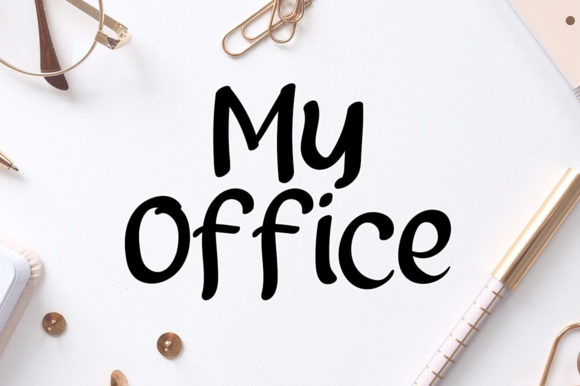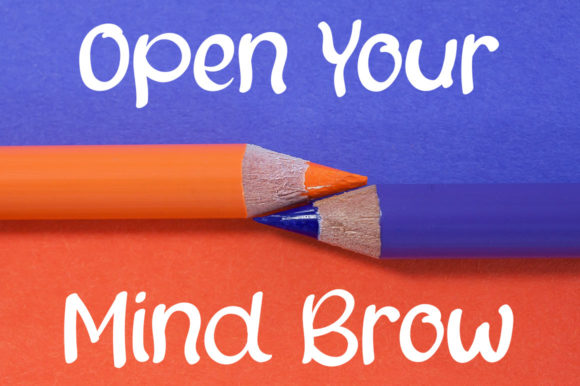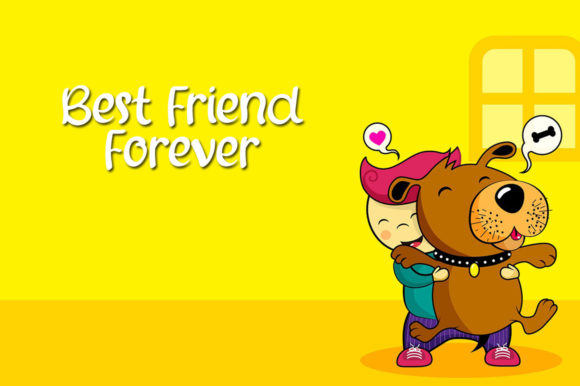
About Love Designer Font
Love Designer is a font that is both beautiful and sweet. It exudes a sense of freshness, cleanliness, and elegance. This font is versatile and can enhance a wide range of projects, whether they are formal or informal. It adds an incredibly joyful touch to your designs, making them more appealing and engaging.
The beauty of Love Designer lies in its simplicity. It’s designed to simplify your design process, making it easier for you to create stunning and professional-looking designs. Whether you’re a professional designer or a hobbyist, Love Designer can help you streamline your design process and enhance your creativity.
One of the standout features of Love Designer is its sweetness. This gives it a warm and inviting feel, making it perfect for projects that require a personal touch. Whether you’re designing a wedding invitation, a logo, or a social media post, Love Designer can add that extra touch of sweetness that makes your designs stand out.
Love Designer is not just a font; it’s a tool that can help you express your creativity. Its fresh and clean look can bring a sense of freshness and cleanliness to your designs, making them more appealing and engaging. Whether you’re designing for a client or for your own personal projects, Love Designer can help you convey the right emotion and message.
Moreover, Love Designer can make your business look more beautiful. Its elegant and professional look can enhance your business’s brand image, making it more appealing to your customers. Whether you’re designing a logo, a business card, or a website, Love Designer can help you create a consistent and professional look for your business.
In conclusion, Love Designer is a beautiful, sweet, fresh, clean, and elegant font that is perfect for a wide range of projects. Its simplicity and versatility make it a valuable asset for any designer. So, whether you’re a professional designer or a hobbyist, Love Designer is a font worth considering for your next project. Why not give Love Designer a try and see how it can enhance your designs? You might be surprised at the difference it can make!